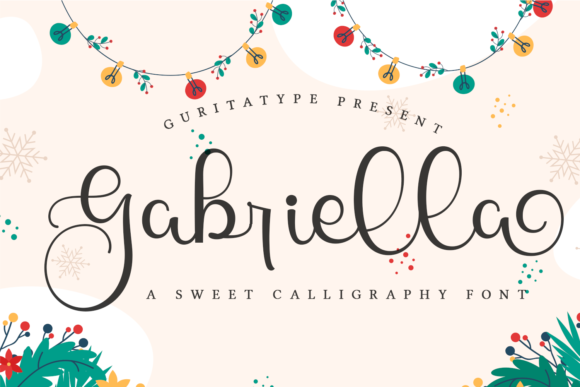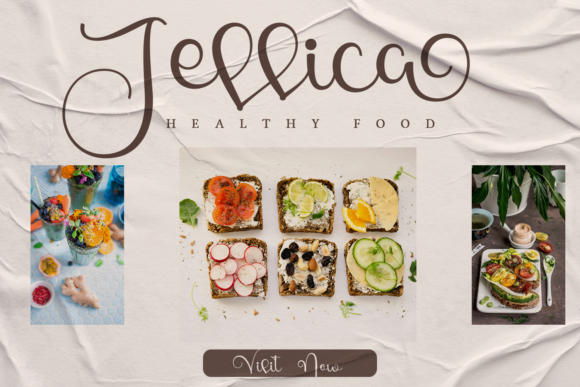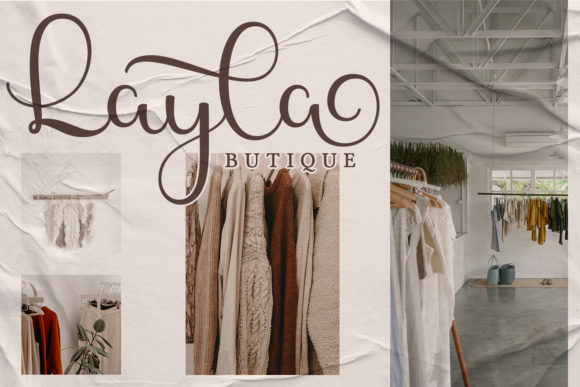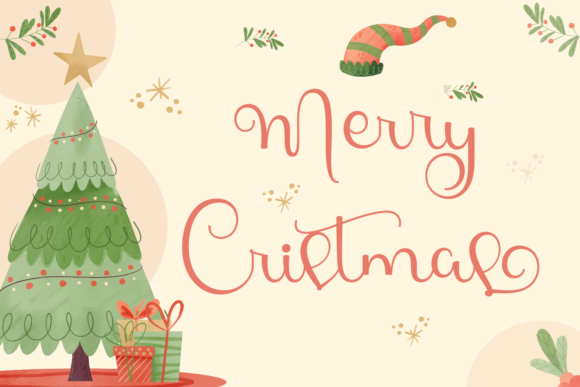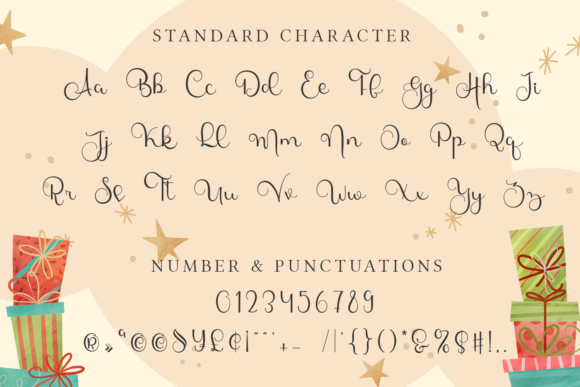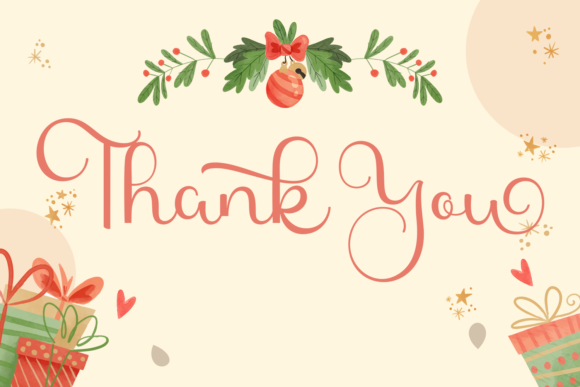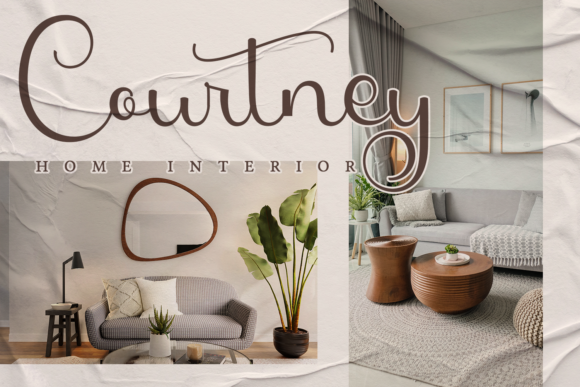
Gabriella Font
About Gabriella Font
Gabriella is a round lettered handwritten font, described by an elegant touch, perfect for your favorite projects. This font is PUA encoded which means you can access all of the glyphs and swashes with ease!